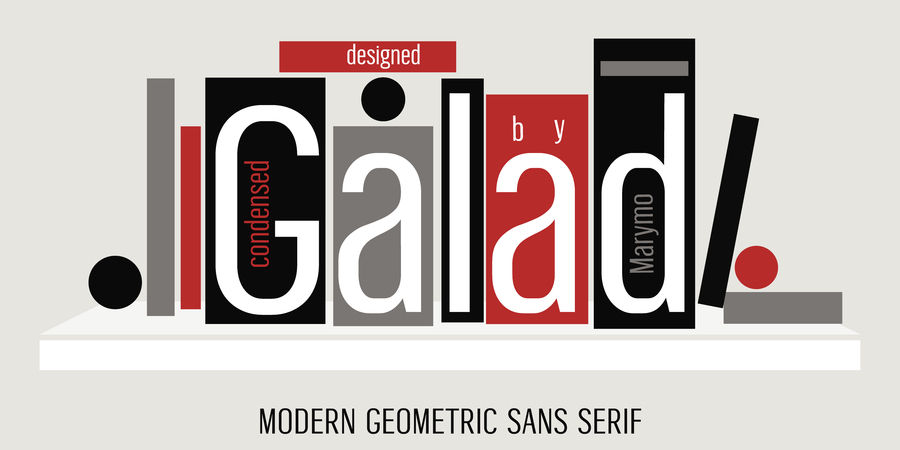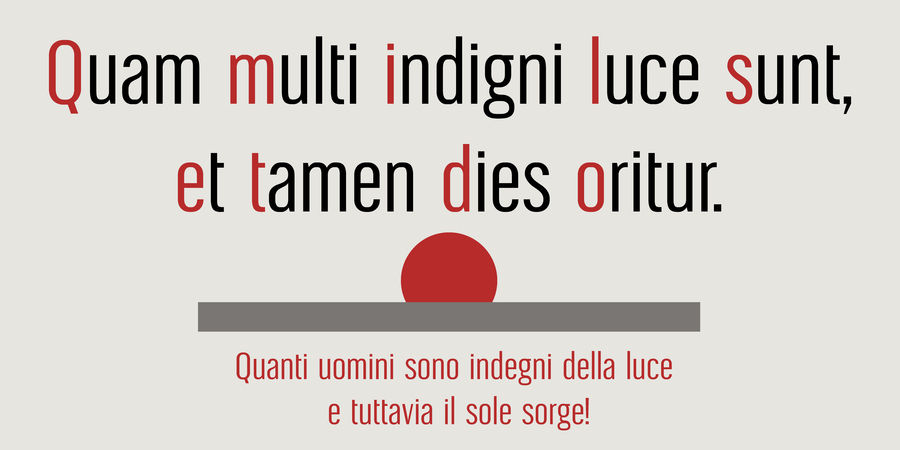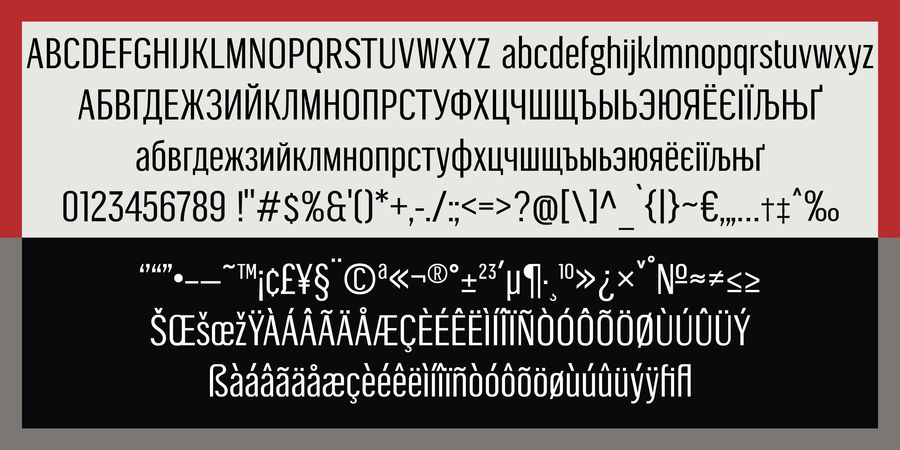
Galad is a simple and easy to read sans serif with narrow proportions. It’s design began in 2017 on the course "Geometric Sans Serif" under the direction of Kyrylo Tkachov. The typeface has characteristics of humanist and geometric sans. Noticeable contrast between thick and thin strokes and half-closed shapes make it a perfect choiсe for small texts as well as for headlines and advertising. The font was designed by Marchela Mozhyna and released in 2018.